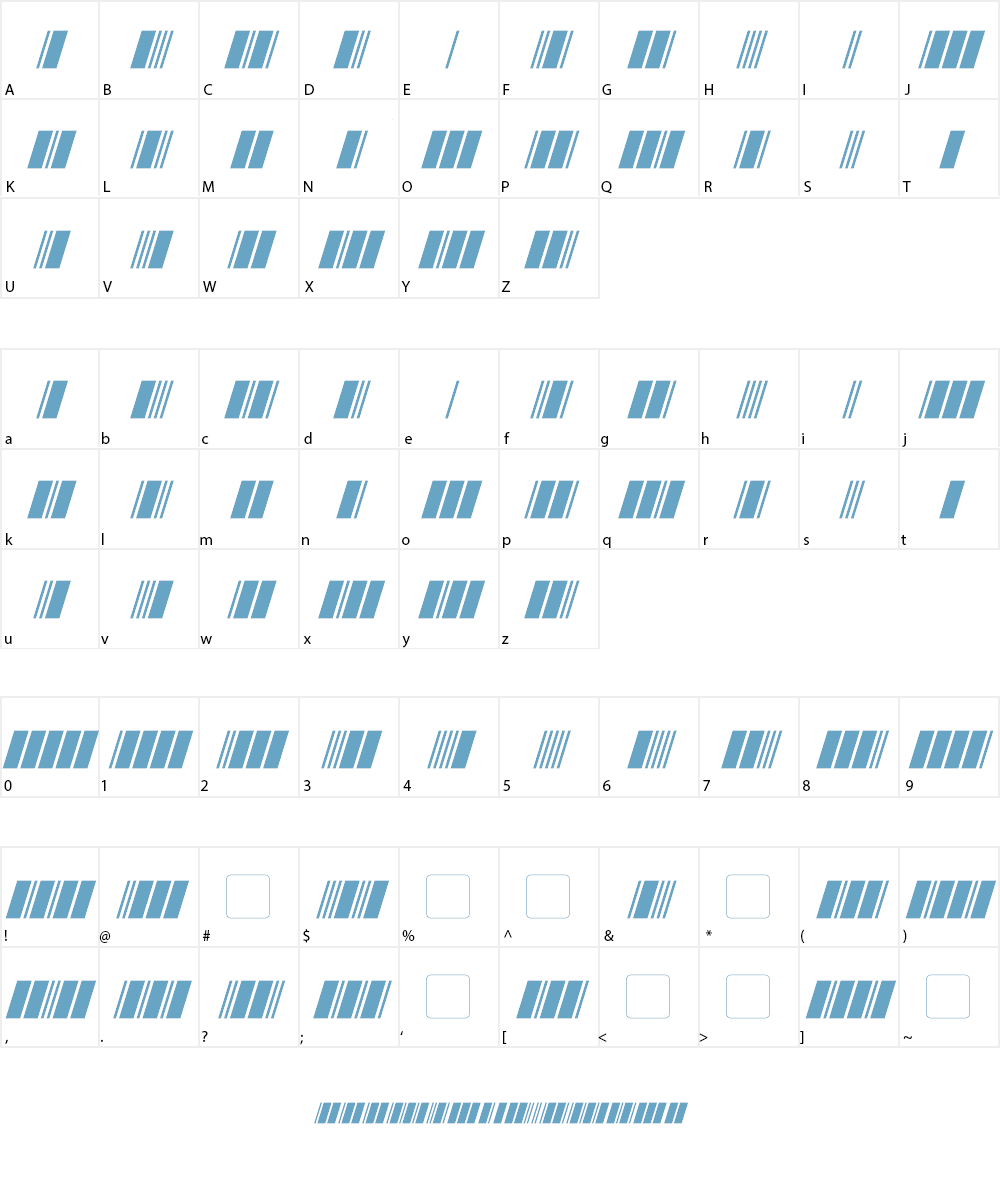
Morse Tech is, actually, a visualized form of Morse Code based on the toy labels of Hasbro’s Transformers: Action Masters line. Includes the entire American Morse Code, and numerous characters of the International Morse Code as well.